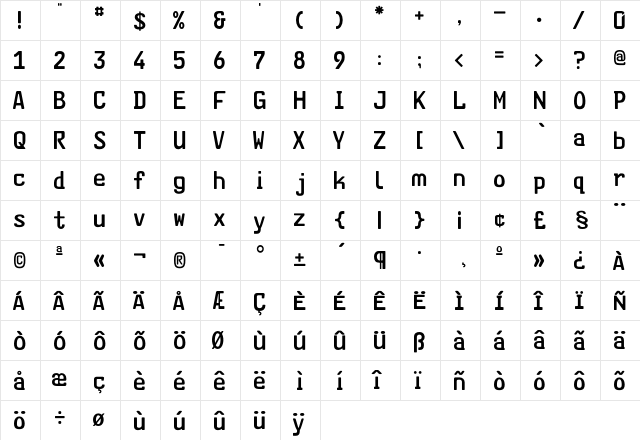
FE Mittelschrift
Design Context for FE Typeface
FE takes a measured approach to typography — its balanced proportions and neutral character make it a reliable workhorse for both digital and print work.